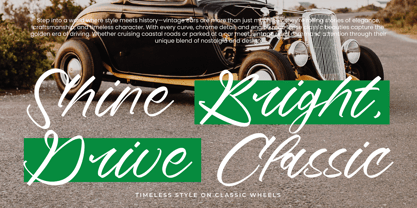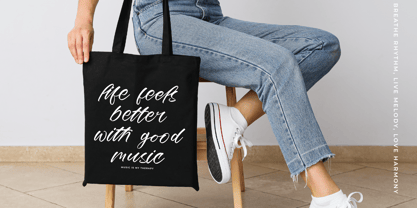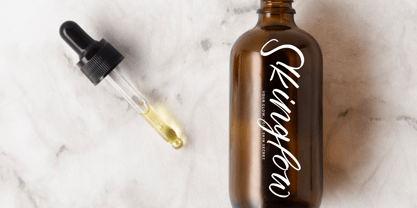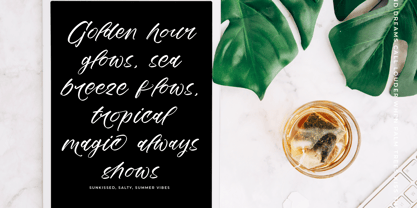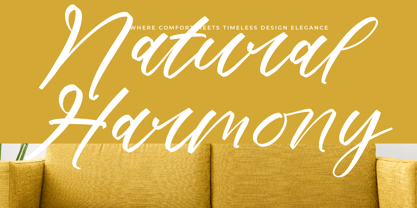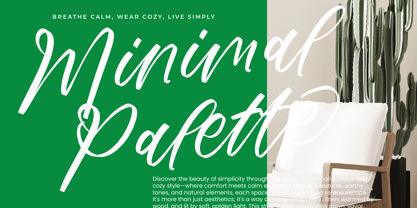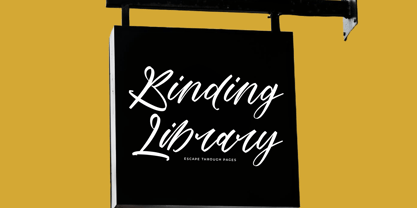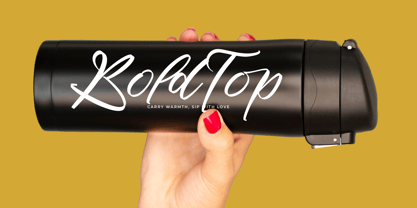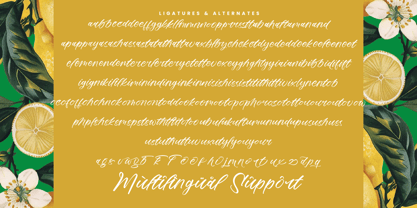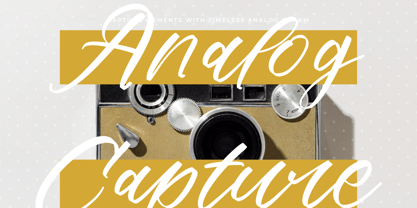
Mindful Angelic
by Stylishtype Studio
The Mindful Angelic Font Family was designed by Heru Utama Putra and published by Stylishtype Studio. Mindful Angelic contains 2 styles and family package options. More about this family
Mindful Angelic - Modern Elegant Handwritten , from Stylishtype , Suitable for any projects such as: logos, branding projects, homeware designs, product packaging, mugs, quotes, posters, shopping bags, t-shirts, book covers, name card, invitation cards, greeting cards, label, photography, watermark, special events, and all your other luxury and beautiful projects that need a Luxury Script taste.